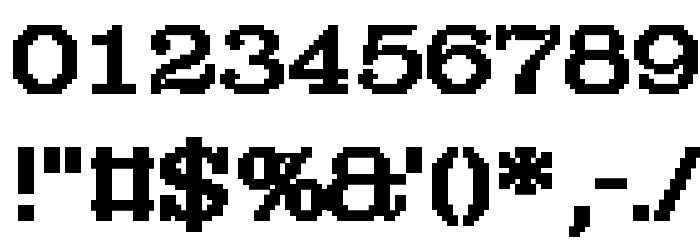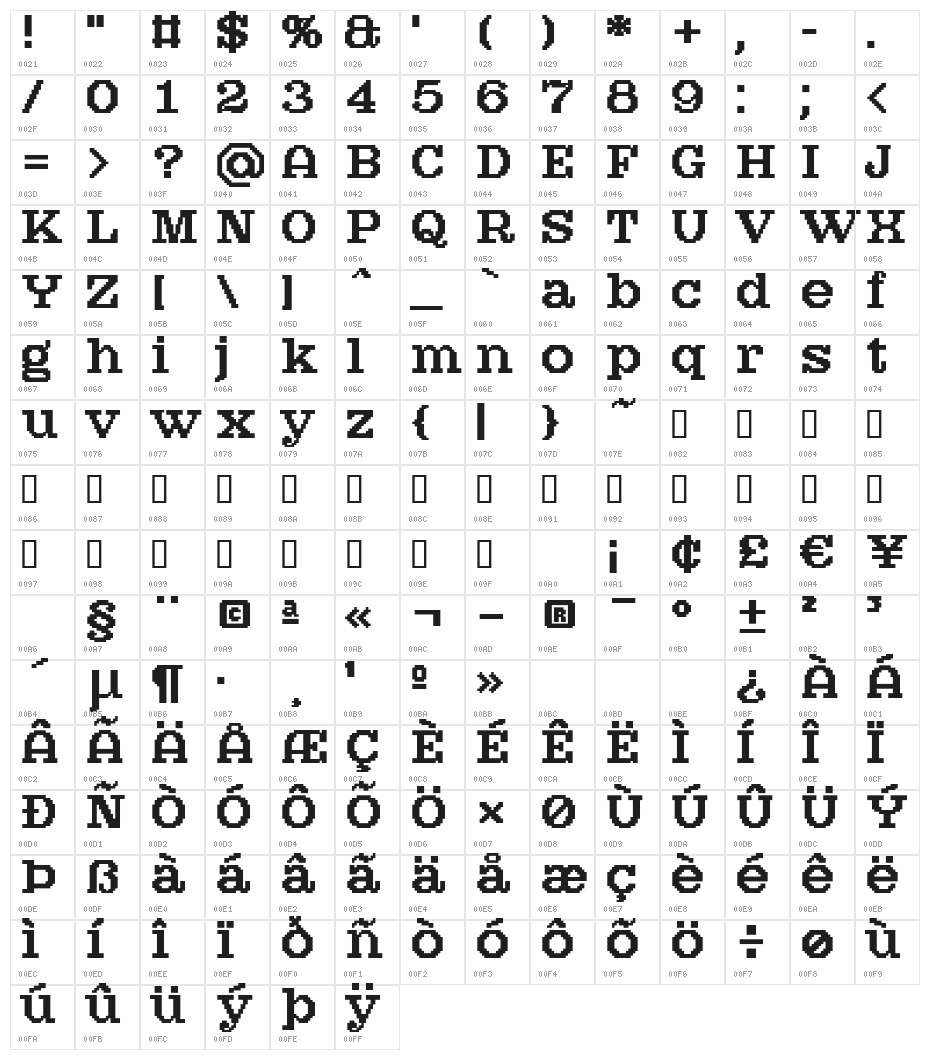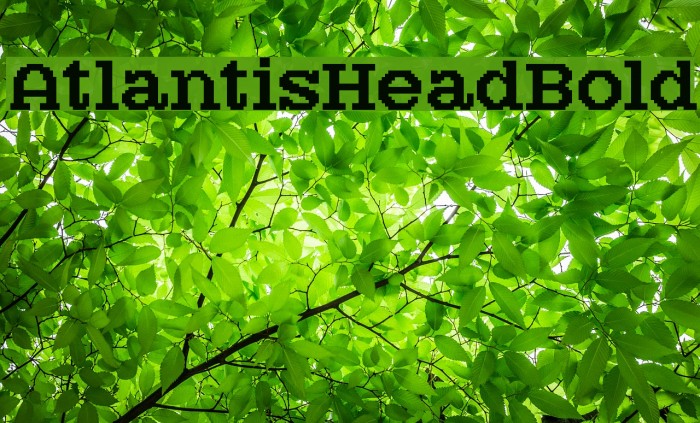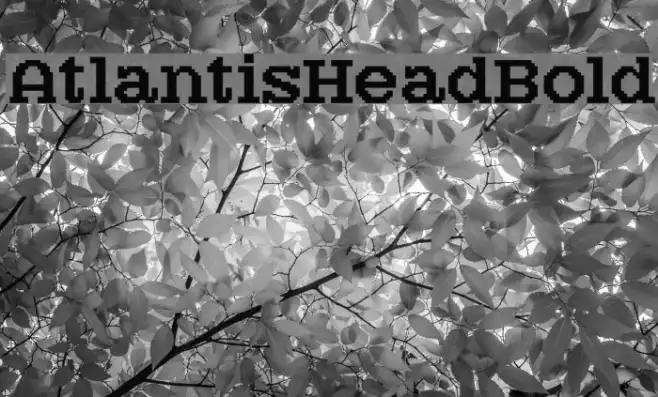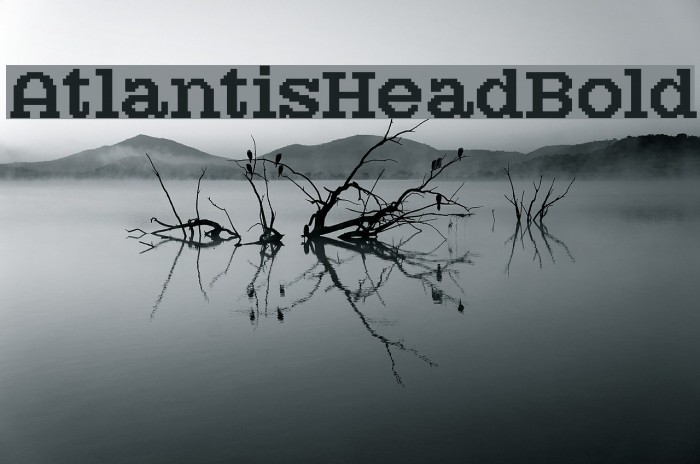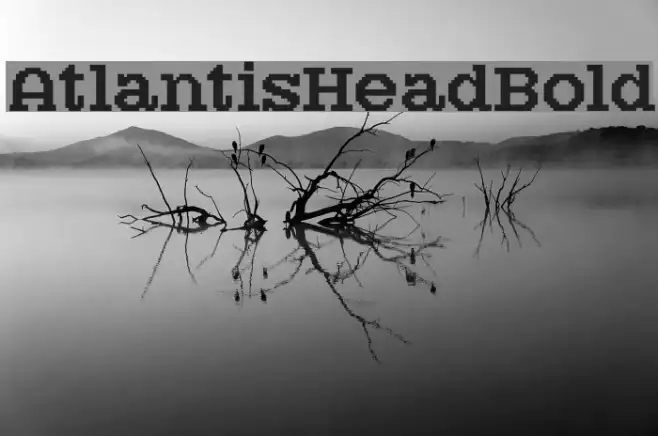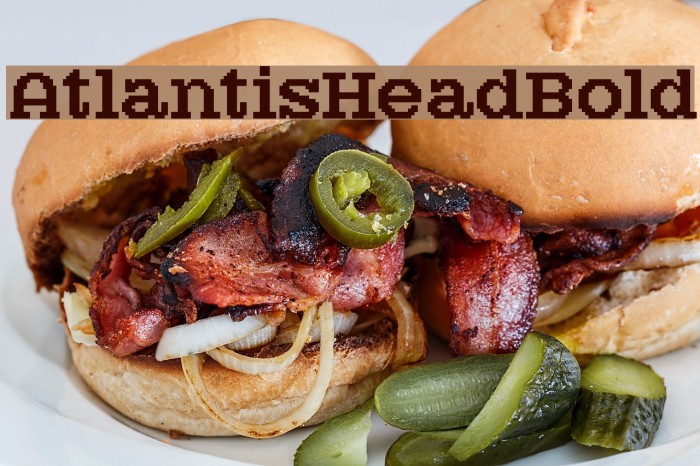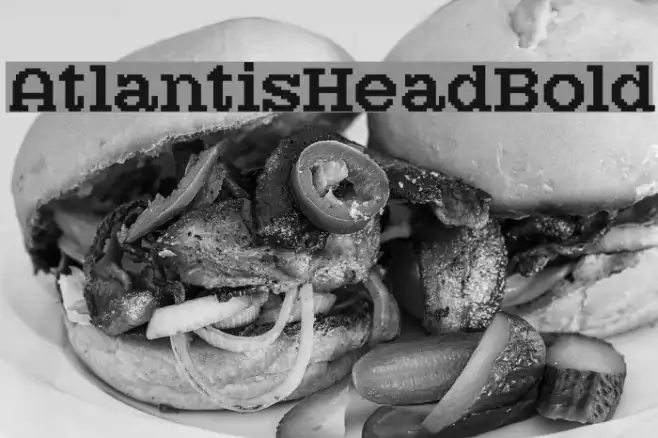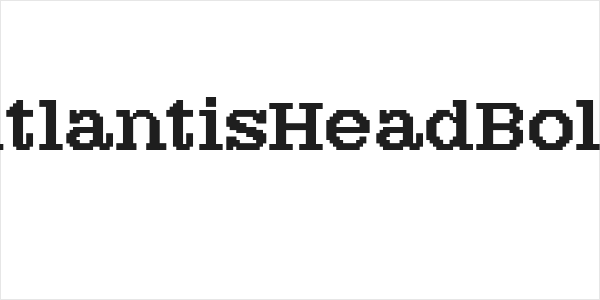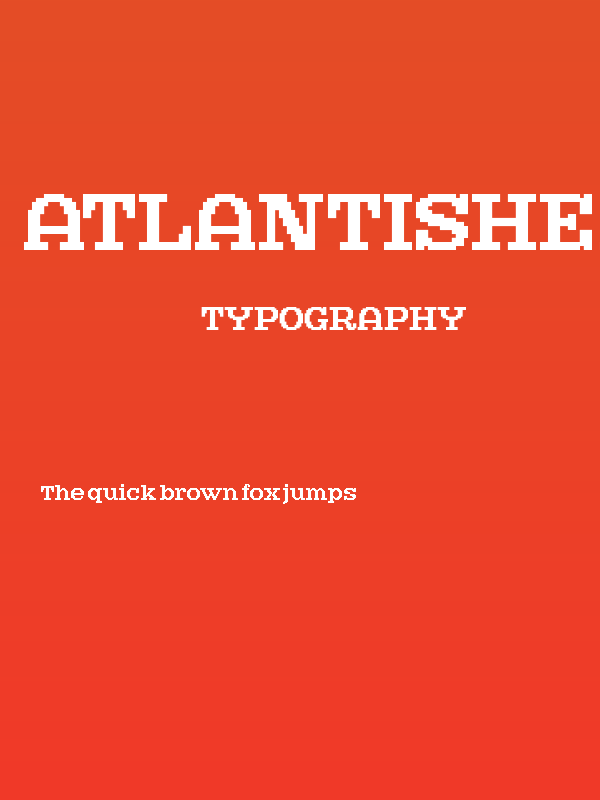
AtlantisHeadBold Font
AtlantisHeadBold Description
This font features a bold, slab serif style with strong, block-like serifs that give it a robust and sturdy appearance. The characters are evenly spaced, providing a balanced and structured look. The uppercase letters are particularly prominent, with a commanding presence that makes them ideal for attention-grabbing headlines. The lowercase letters maintain the same boldness, ensuring consistency across different text sizes. Numerals are clear and legible, making them suitable for various applications. Special characters are designed with the same boldness, ensuring they stand out effectively.
Overall StyleClassic
Proposed ProjectsIdeal for headlines, posters, branding materials, and any project requiring a strong, impactful typeface.